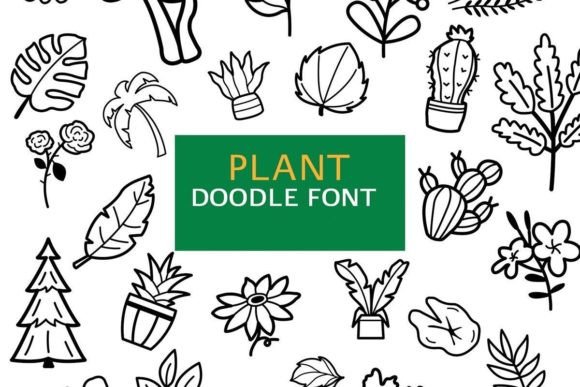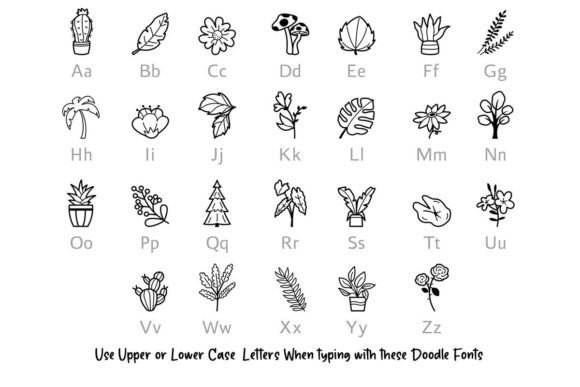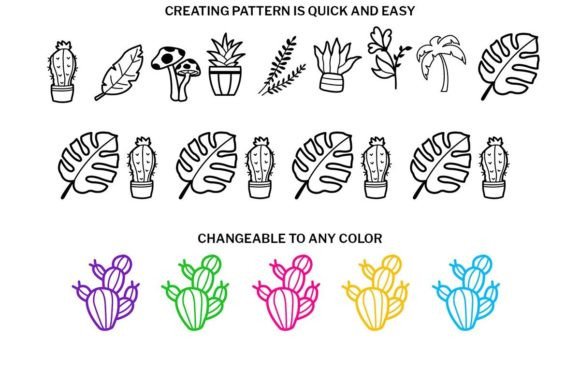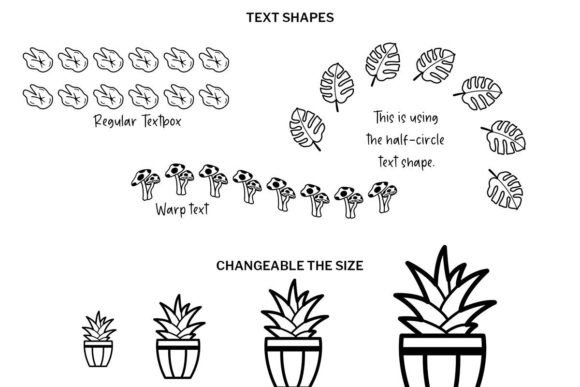
Plant Doodle Font
About the Plant Doodle Font
Presenting Plant Doodle Font, a unique and stylish typeface that will make your work stand out. Plant Doodle is a fun and cute dingbat font. Its versatility makes it great for a wide pool of craft projects, designs, planners, diaries, activity books, or anything that your heart desires!
Plant Doodle’s playful nature makes it ideal for children’s books, greeting cards, and branding projects targeting a young, whimsical audience. It works exceptionally well in headlines, short text blocks, and as decorative elements within larger layouts. However, its low x-height and informal style make it unsuitable for body text or user interfaces requiring high readability.
Consider pairing Plant Doodle with a clean sans-serif like Open Sans for a balanced contrast, or a more playful script font like Pacifico for a cohesive, hand-drawn feel. For a more sophisticated look, a delicate serif such as Lora could provide a refined counterpoint to the font’s whimsicality.
Plant Doodle projects a friendly, approachable personality, best suited for brands emphasizing fun, creativity, and lightheartedness. Avoid using it in contexts requiring professionalism or seriousness.
Plant Doodle Font Usage Examples
Plant Doodle Font Example